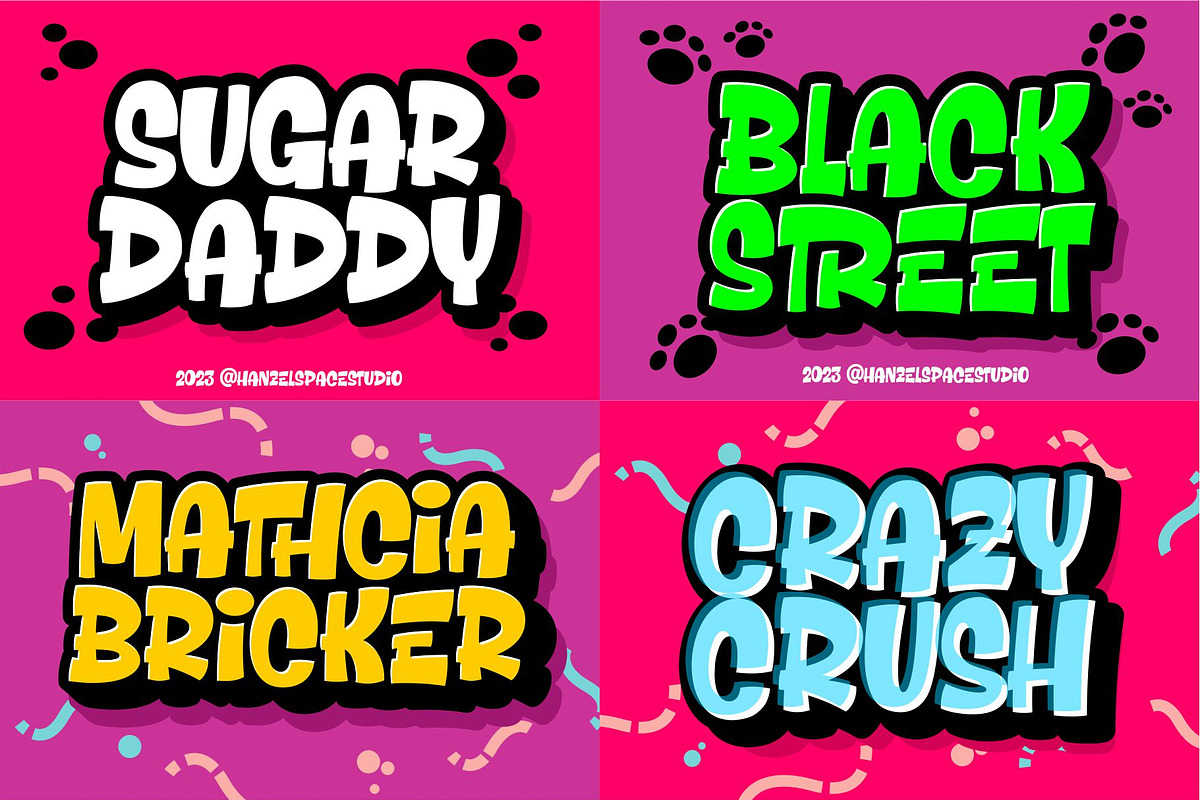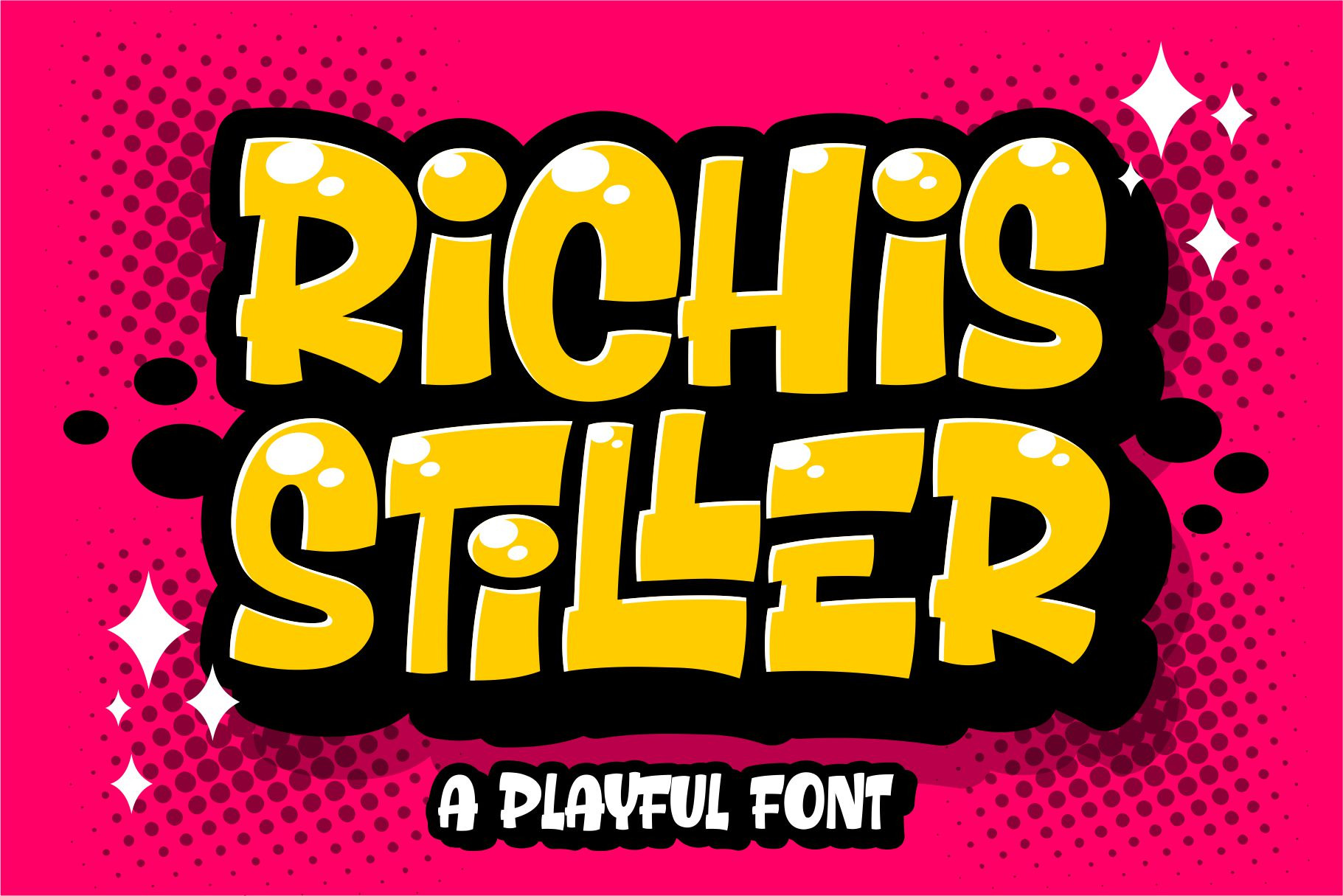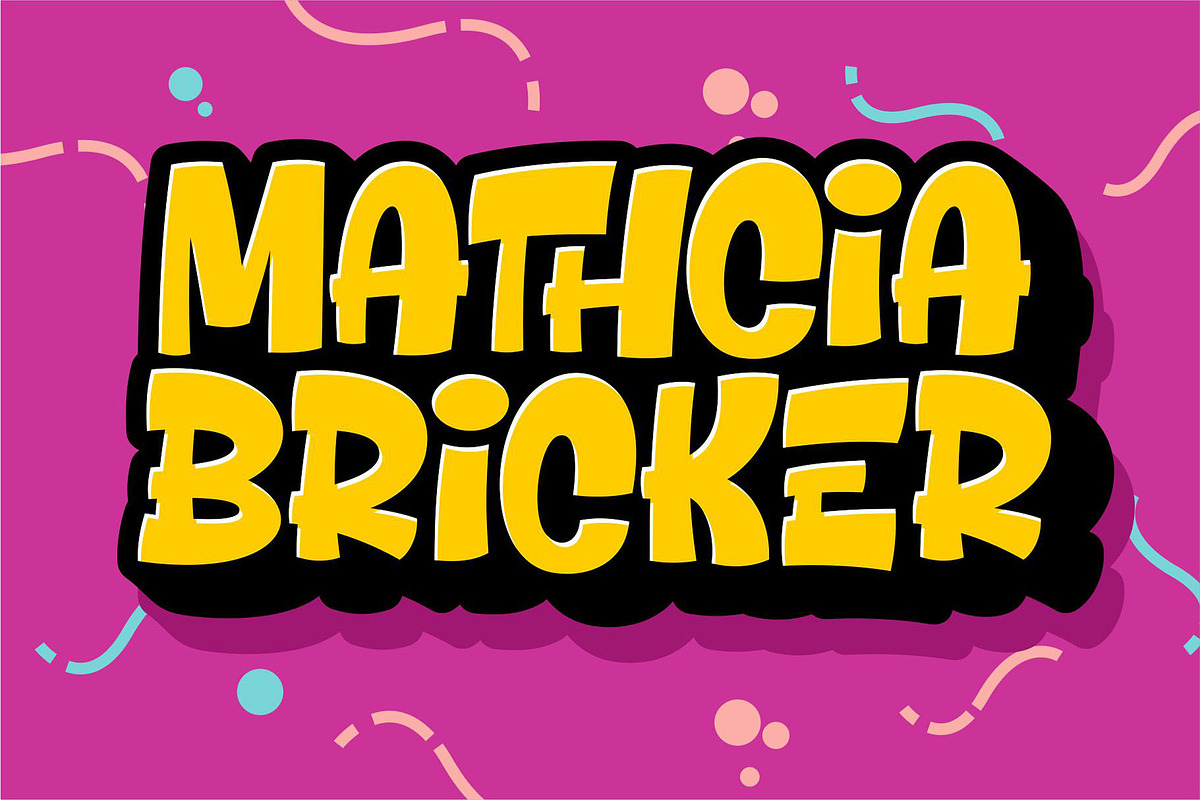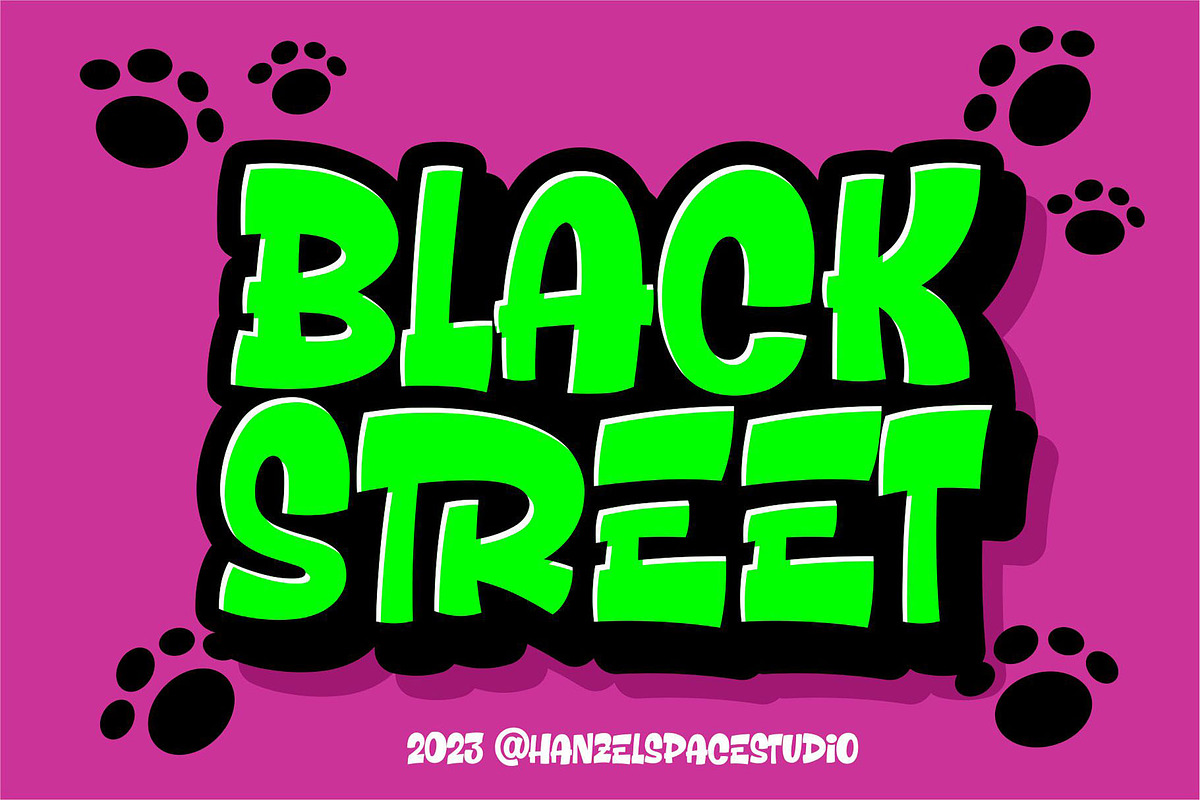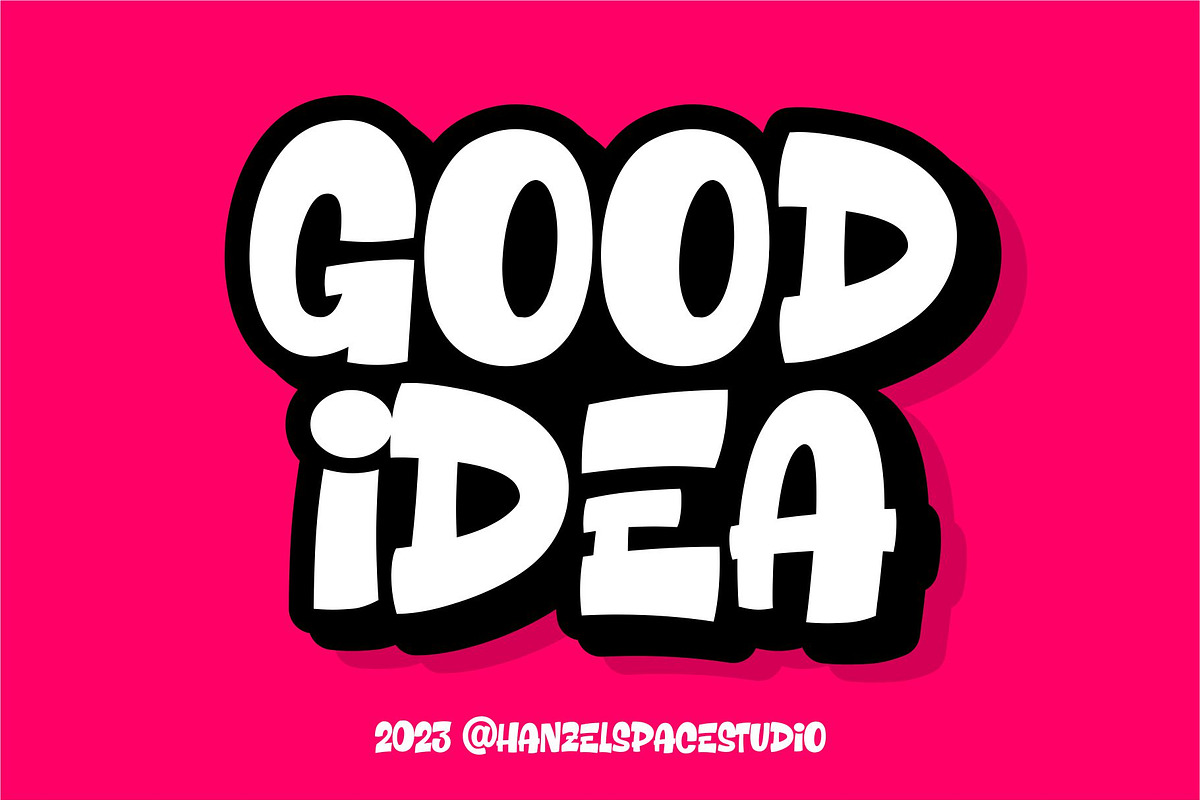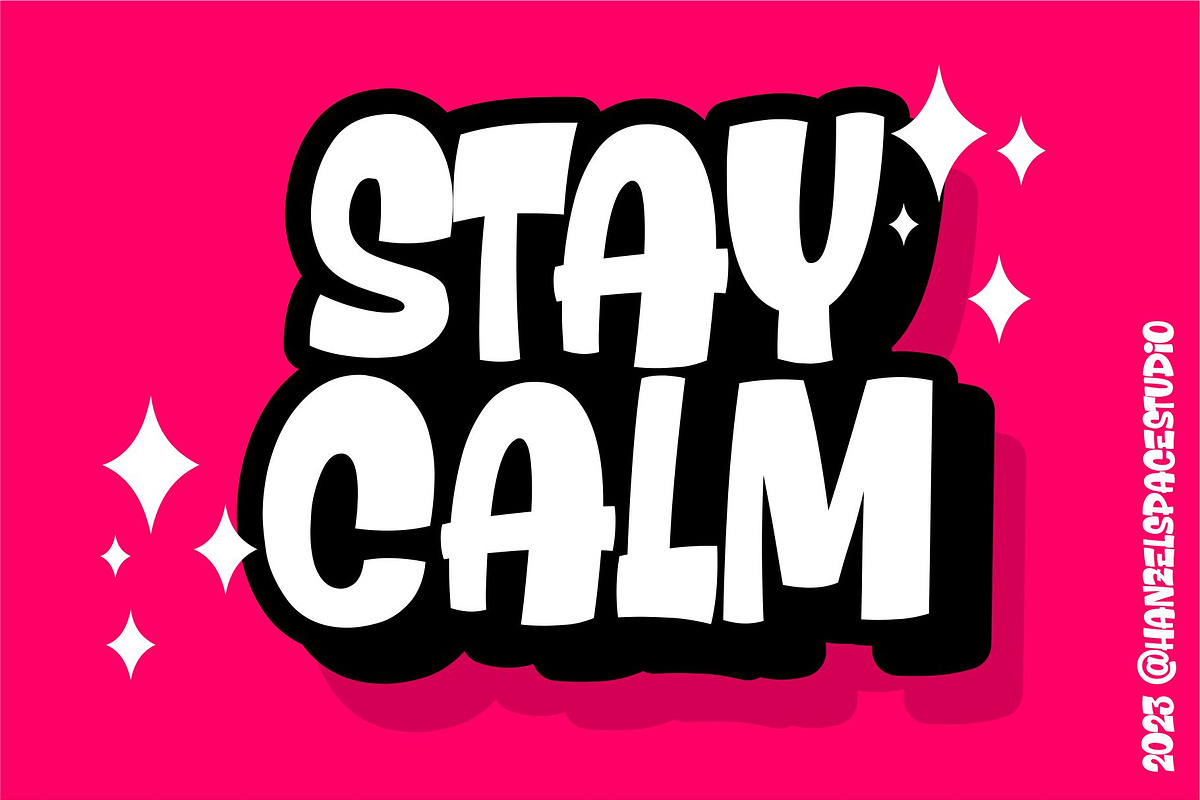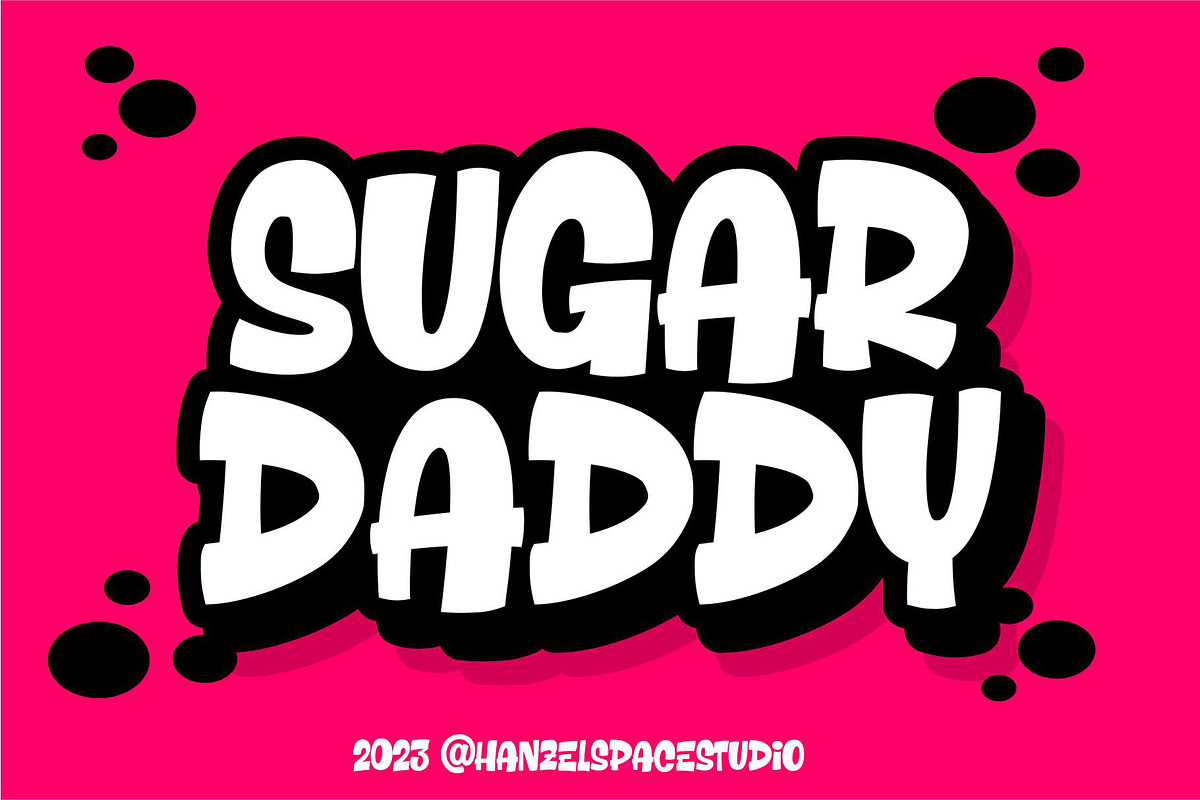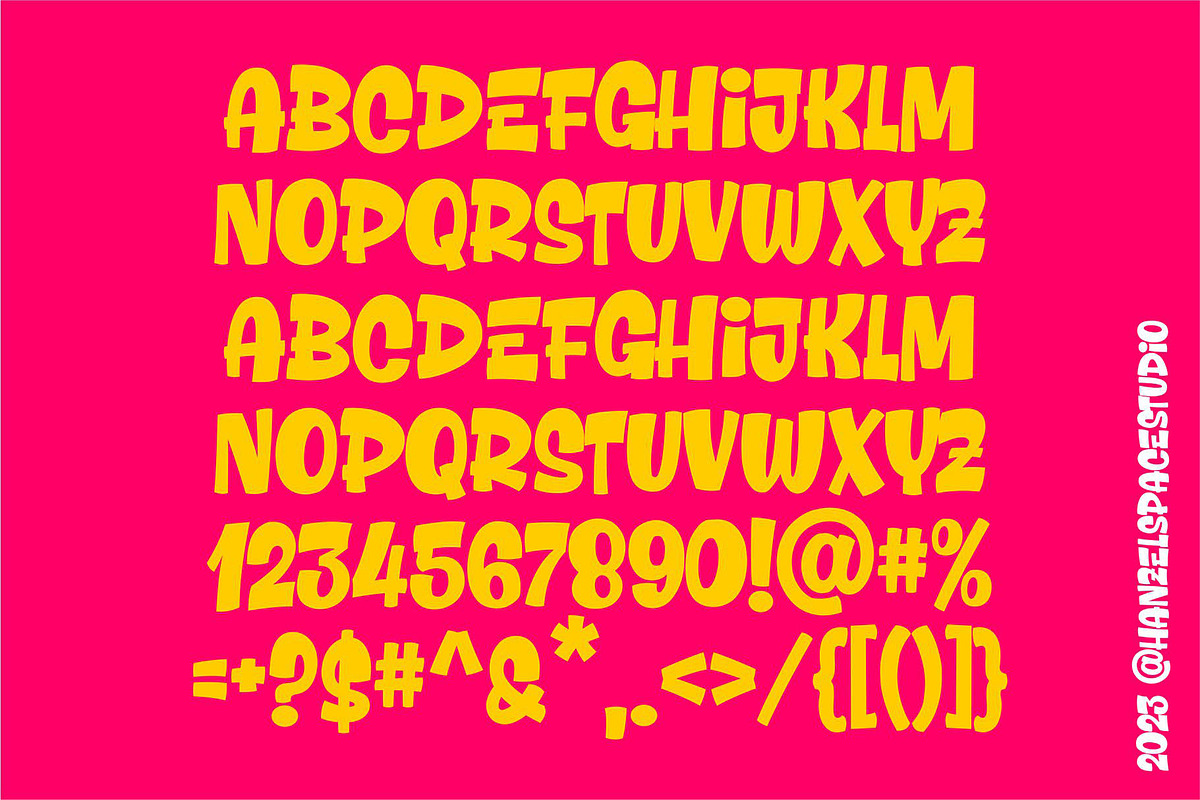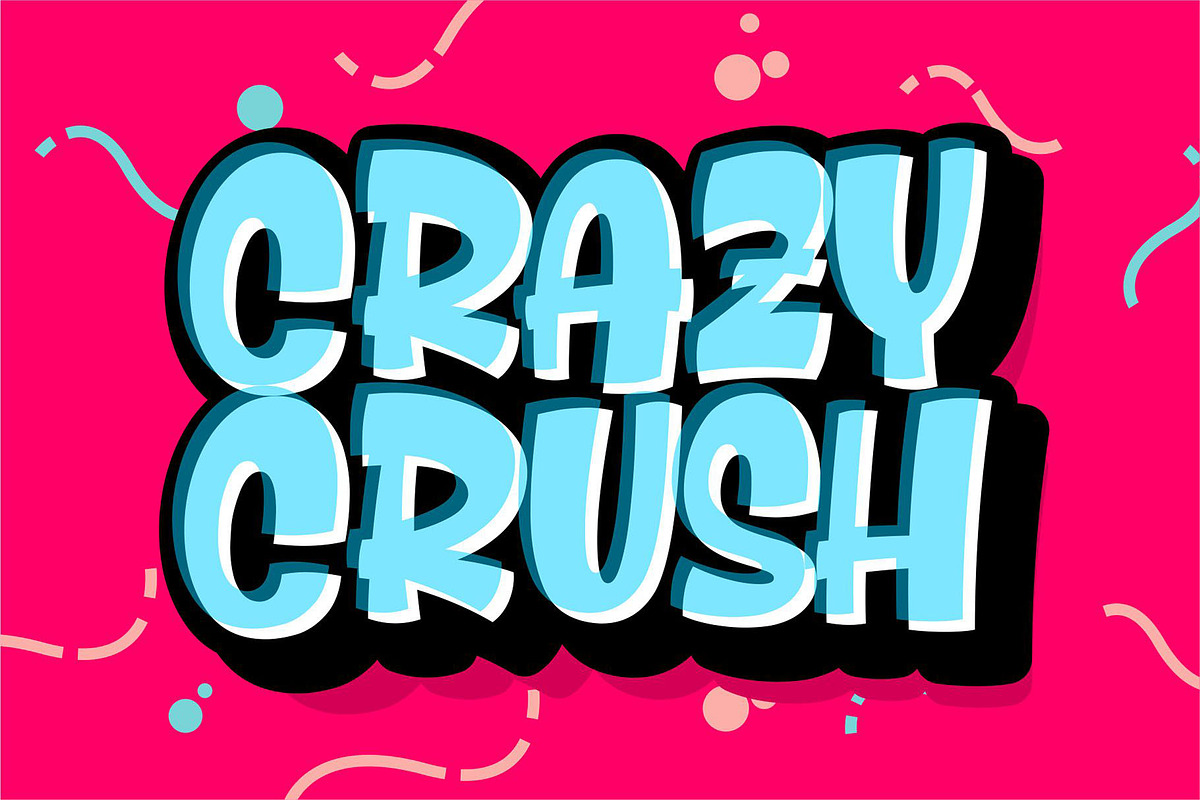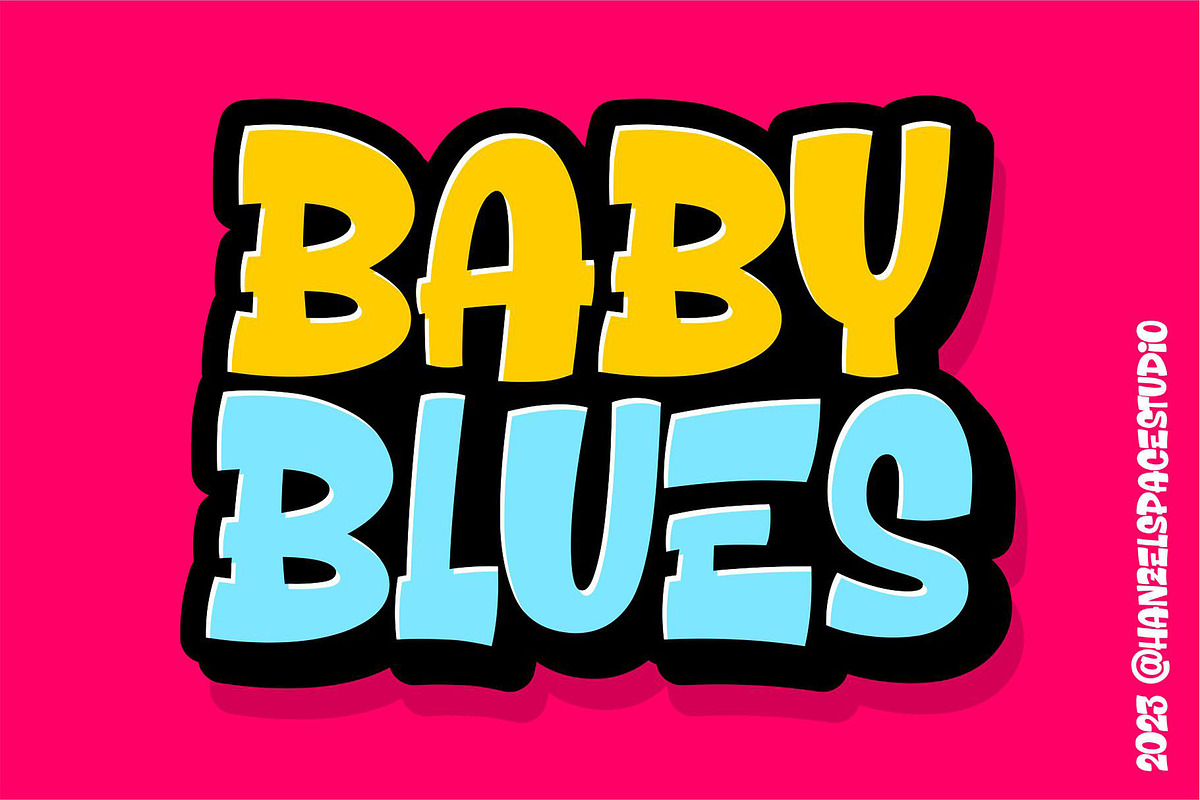
Richis Stiller - Playful Font
Hello, introduce our font “Richis Stiller” this font has a playful nuance so it looks more cheerful and friendly. Fonts that have a slightly irregular shape to display a unique impression on the character of the font. And it is very suitable for use as book titles, product names, packaging, posters and so on.